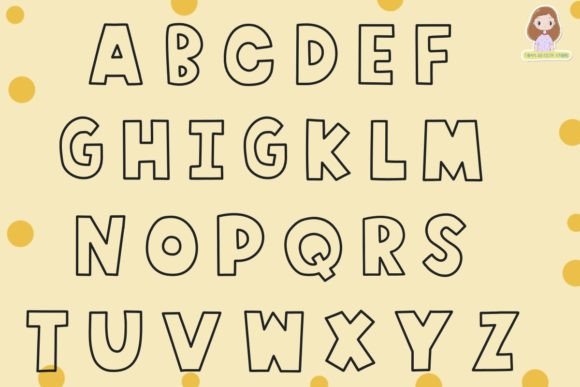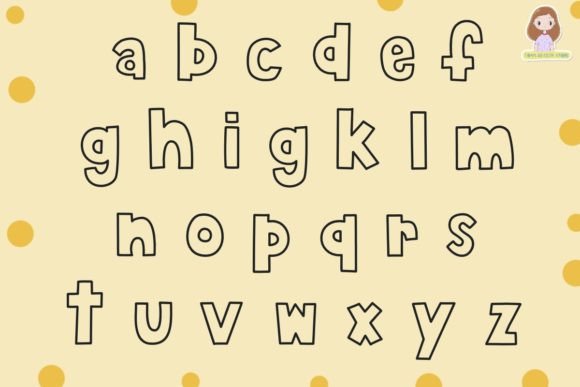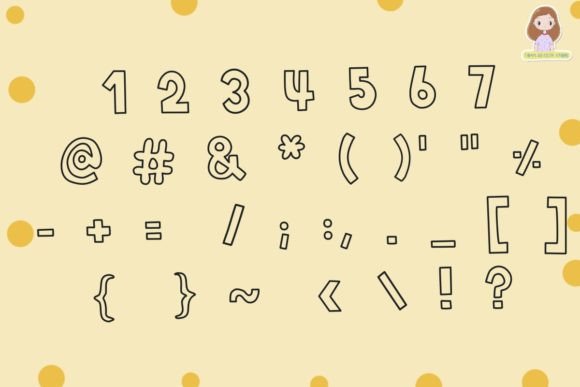
The Ultimate Guide to Friday Font: Adding a Playful Touch to Your Designs
I’ll never forget the time I was working on a project for a children’s birthday party, and I just couldn’t find the perfect font to match the playful vibe of the design. The client wanted something fun, friendly, and energetic, but everything I tried seemed either too boring or too over-the-top. That’s when I stumbled upon the Friday font, and it instantly brought the design to life! In this article, I’ll share my love for this adorable font, its features, and how to make the most of it in your creative projects.
An Honest Review of Friday Font
What I Love About Friday Font
- ✨ Its friendly and approachable feel makes it perfect for a wide range of contexts, from kids’ party invites to social media graphics.
- ✅ The font is incredibly flexible, allowing you to create endless variations to suit your design needs.
- 🌈 The playful and fun vibe of Friday font is sure to add a pop of personality to any design.
While Friday font is an amazing addition to any design project, there are a few things to keep in mind:
- ⚠️ The font might not be the best choice for very formal or professional designs, as its playful nature might not fit the tone.
- 🤔 Some users have reported that the font can be a bit tricky to read in smaller sizes, so it’s best to use it in larger sizes or for headlines.
The Backstory of Friday Font
Friday font was designed with one goal in mind: to create a fun and playful font that’s perfect for adding a personal touch to your designs. The designer, inspired by the carefree spirit of Friday evenings, set out to create a font that’s friendly, approachable, and energetic. And with its endless variations and OpenType features, Friday font is sure to become a favorite in your design toolkit.
Q: Is Friday font suitable for body text?
A: While Friday font is perfect for headlines and titles, it might not be the best choice for body text, as it can be a bit tricky to read in smaller sizes.